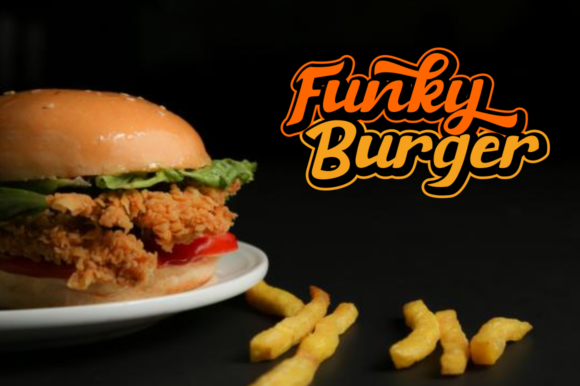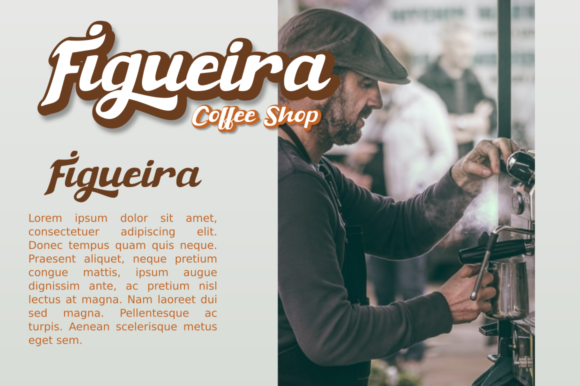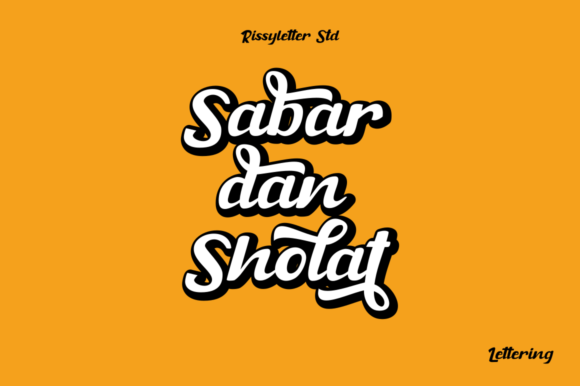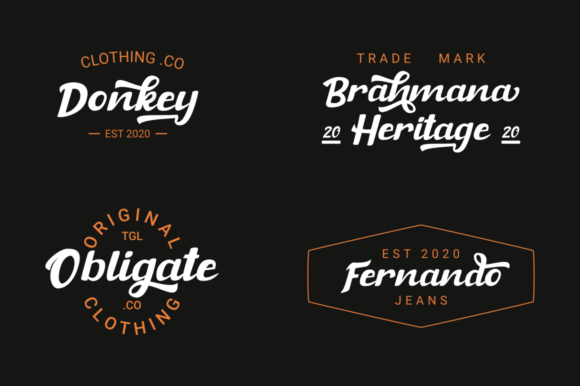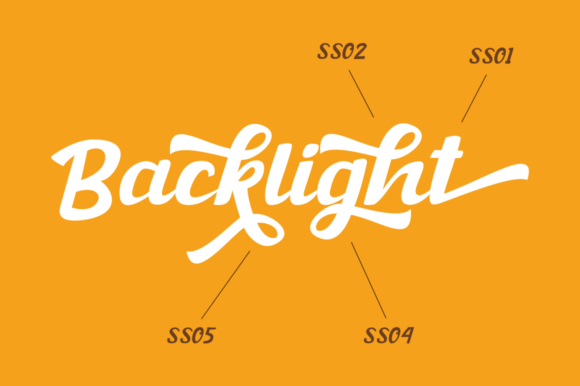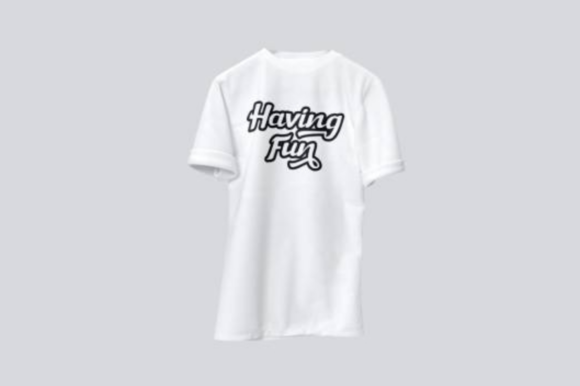
Introducing Buckey Font: The Bouncy and Quirky Handwritten Font That’s Taking Design by Storm
Are you tired of using the same old fonts in your designs? Do you want to add a fresh and contemporary touch to your creative projects? Look no further than Buckey Font, a bouncy and quirky handwritten font that’s sure to make your designs stand out. In this article, we’ll take a closer look at Buckey Font, its features, and how you can use it to take your designs to the next level.
What is Buckey Font?
Buckey Font is a unique and eye-catching handwritten font that’s perfect for designers and crafters who want to add a personal touch to their work. With its bouncy and quirky style, Buckey Font is sure to grab attention and make your designs memorable. Whether you’re working on a logo, poster, or social media graphic, Buckey Font is the perfect choice.
Features of Buckey Font
So, what makes Buckey Font so special? Here are just a few of its key features:
- Bouncy and Quirky Style: Buckey Font has a unique bouncy and quirky style that’s sure to add a fresh and contemporary touch to your designs.
- Handwritten Look: With its handwritten look, Buckey Font adds a personal touch to your designs, making them more relatable and engaging.
- Display Font: Buckey Font is a display font, making it perfect for headlines, titles, and other attention-grabbing elements in your designs.
- Unique and Eye-Catching: Buckey Font is a one-of-a-kind font that’s sure to make your designs stand out from the crowd.
How to Use Buckey Font in Your Designs
So, how can you use Buckey Font in your designs? Here are a few ideas to get you started:
- Logos and Branding: Use Buckey Font to create a unique and memorable logo that reflects your brand’s personality.
- Posters and Flyers: Add a fresh and contemporary touch to your posters and flyers with Buckey Font.
- Social Media Graphics: Use Buckey Font to create eye-catching social media graphics that grab attention and drive engagement.
- Invitations and Cards: Add a personal touch to your invitations and cards with Buckey Font.
Tips for Getting the Most Out of Buckey Font
Here are a few tips for getting the most out of Buckey Font:
- Experiment with Colors: Buckey Font looks great in a variety of colors, so don’t be afraid to experiment and find the perfect color scheme for your design.
- Play with Sizes: Buckey Font can be used in a range of sizes, from large headlines to smaller body text.
- Mix and Match: Try pairing Buckey Font with other fonts to create a unique and interesting contrast.
| Font Name | Buckey Font |
| Author | Rissyletter Studio |
- Buckey Font is a bouncy and quirky handwritten font that’s perfect for adding a fresh and contemporary touch to your designs.
- It has a unique and eye-catching style that’s sure to make your designs stand out.
- Buckey Font is a display font, making it perfect for headlines, titles, and other attention-grabbing elements in your designs.
- It’s perfect for a range of design projects, including logos, posters, social media graphics, and more.